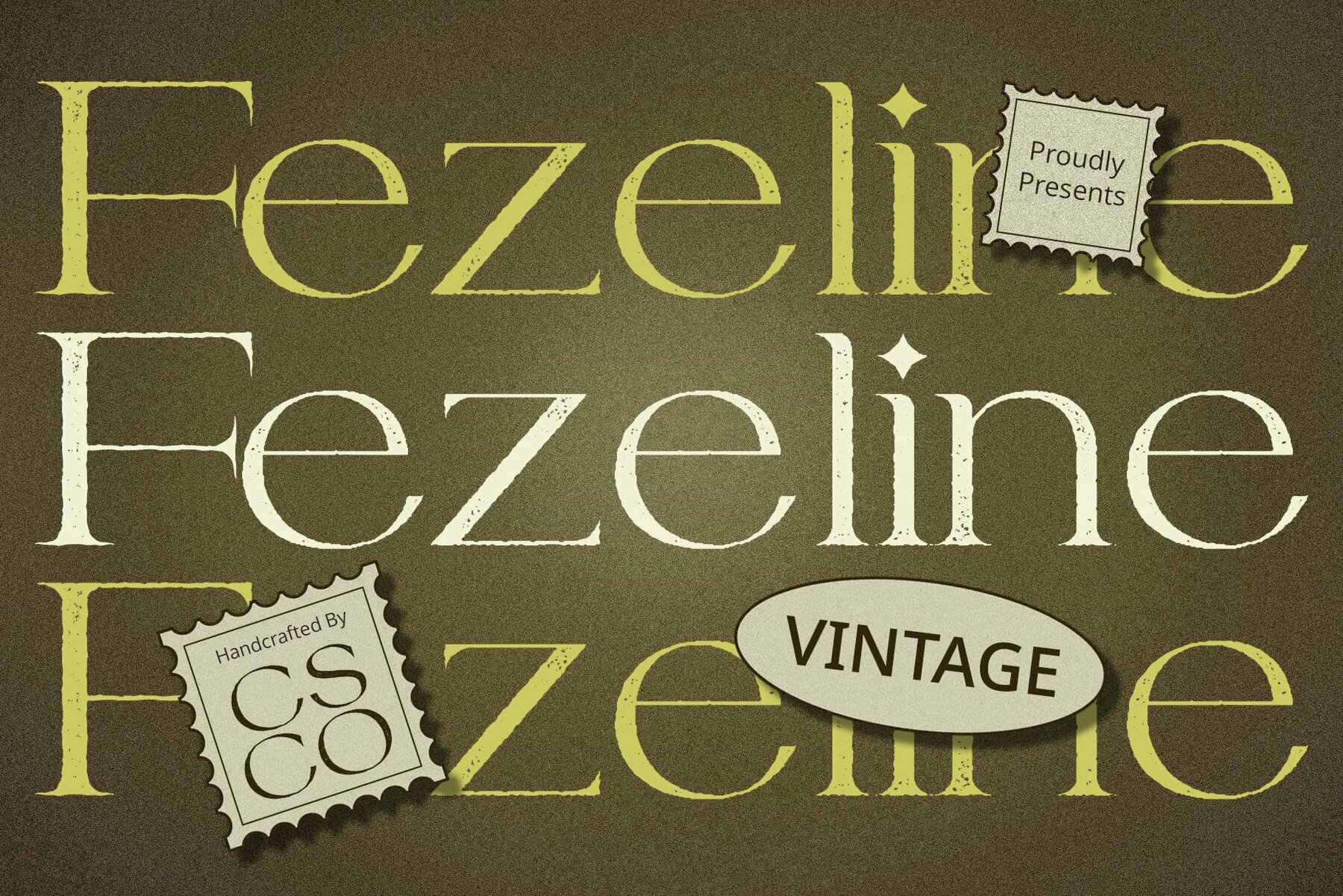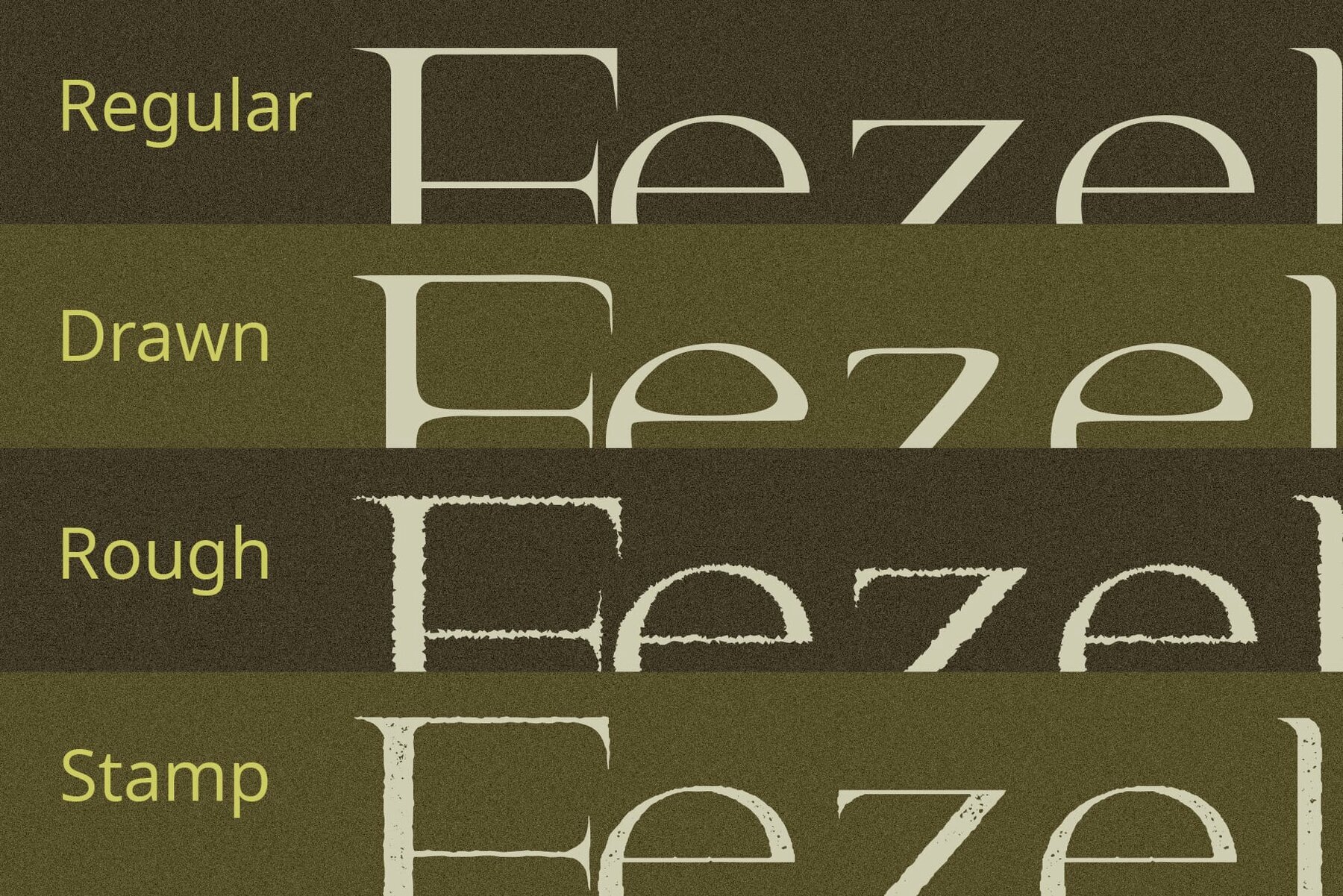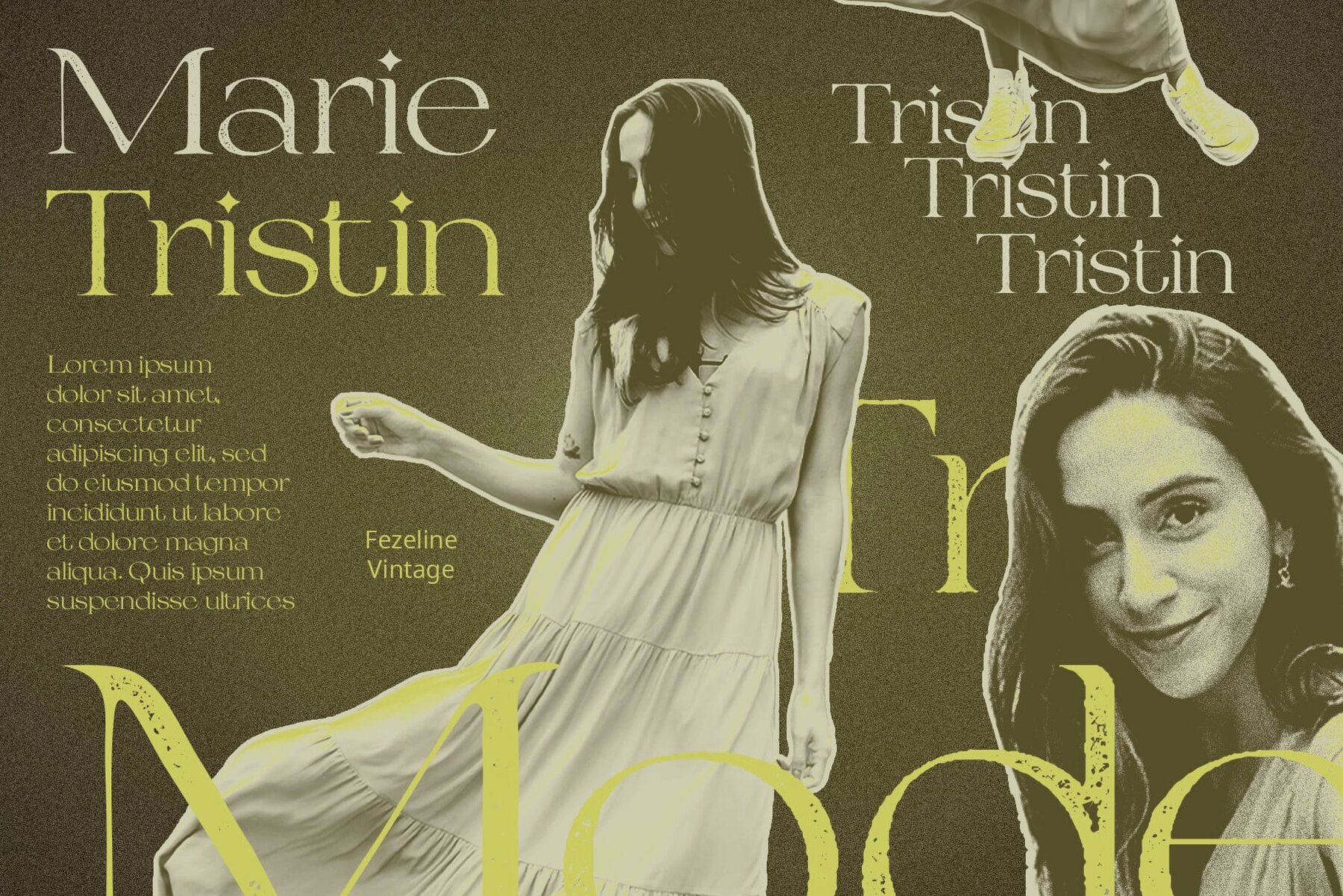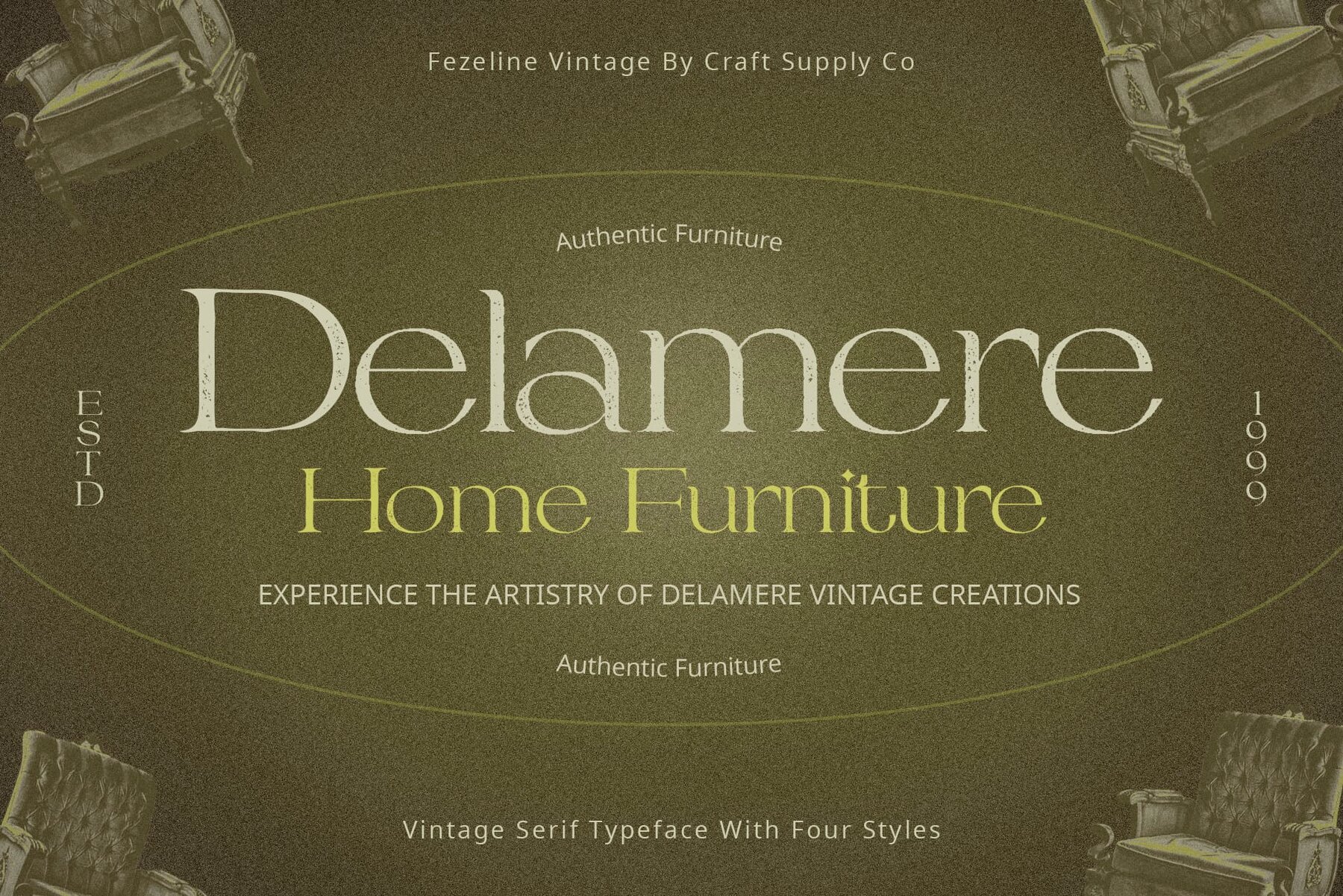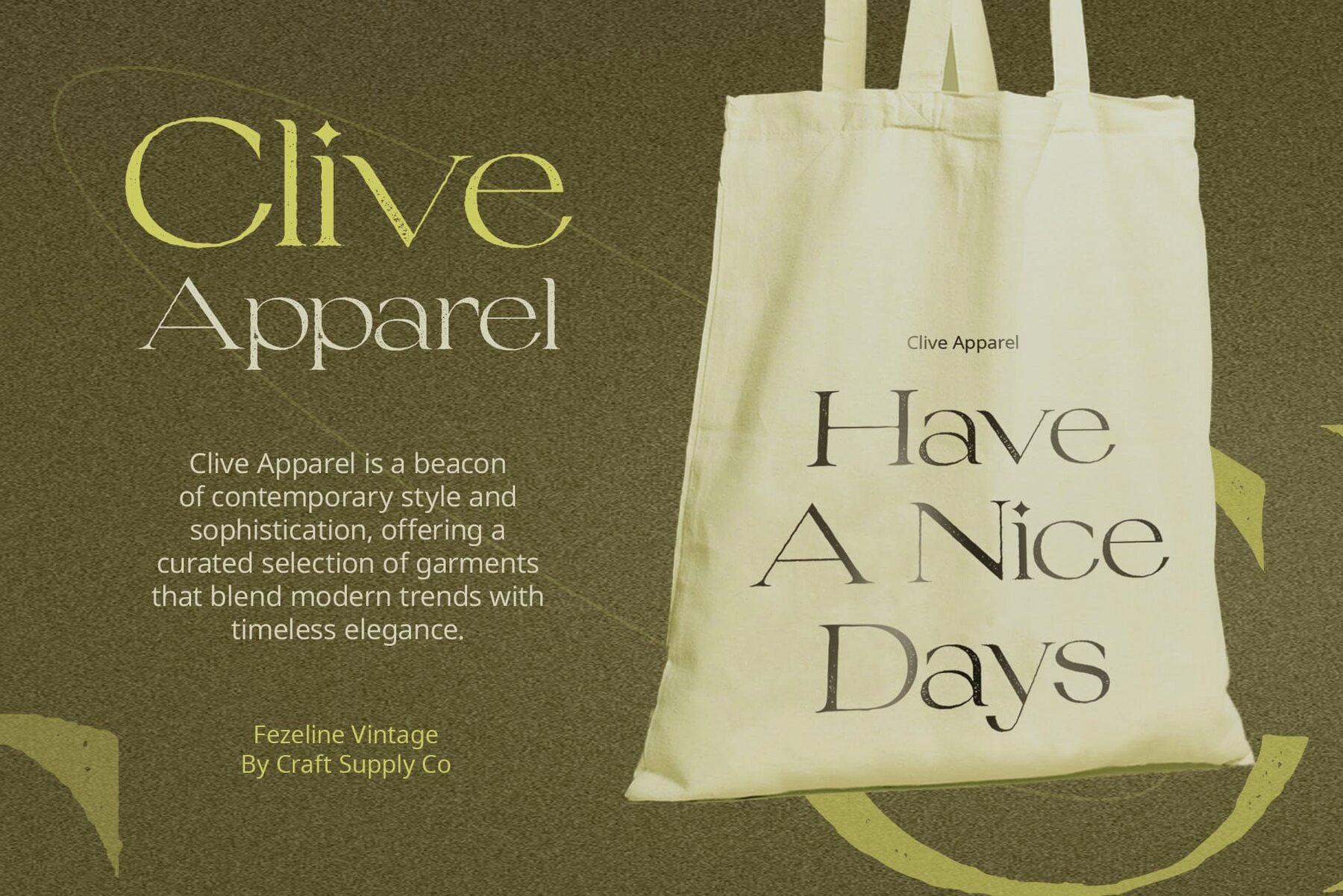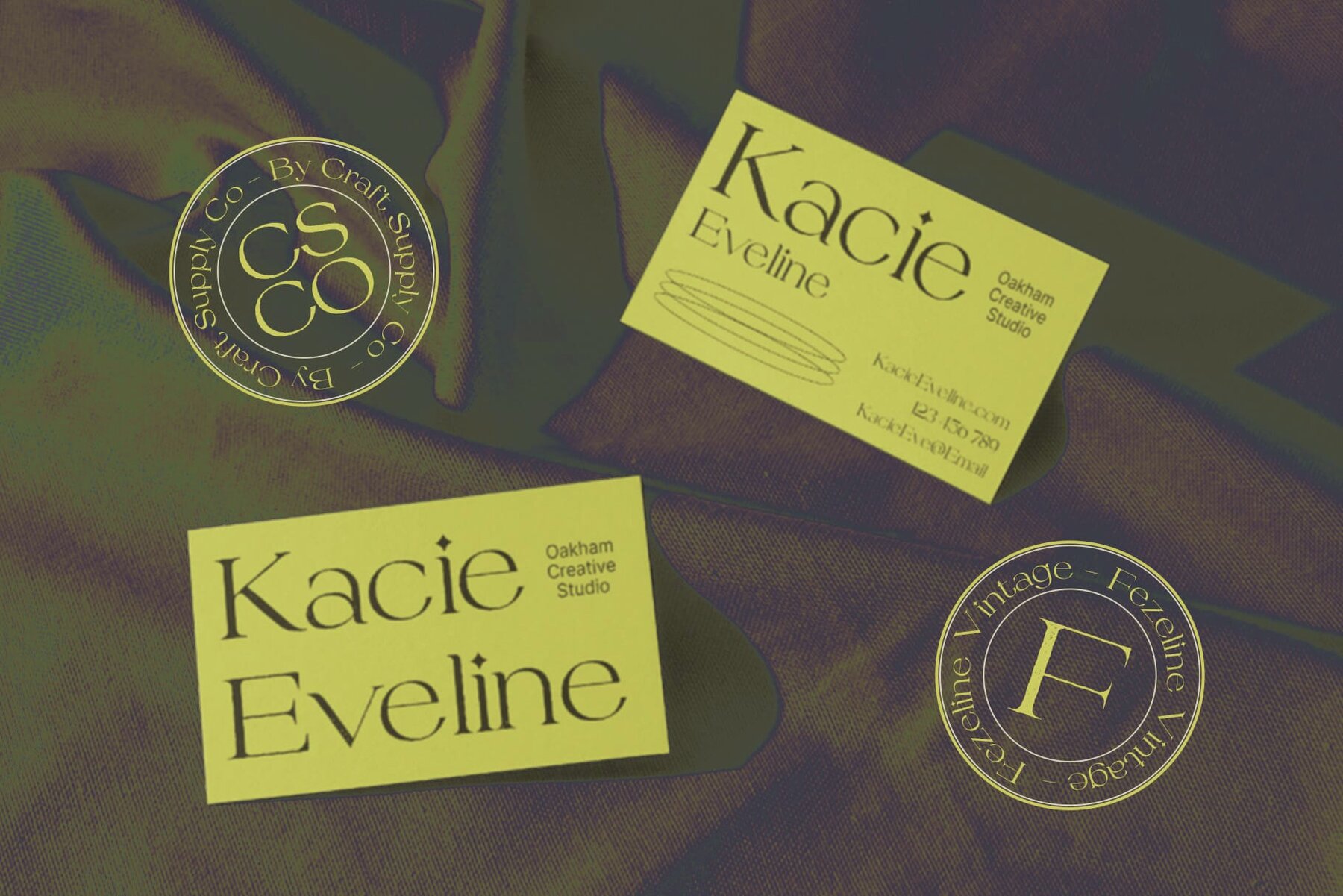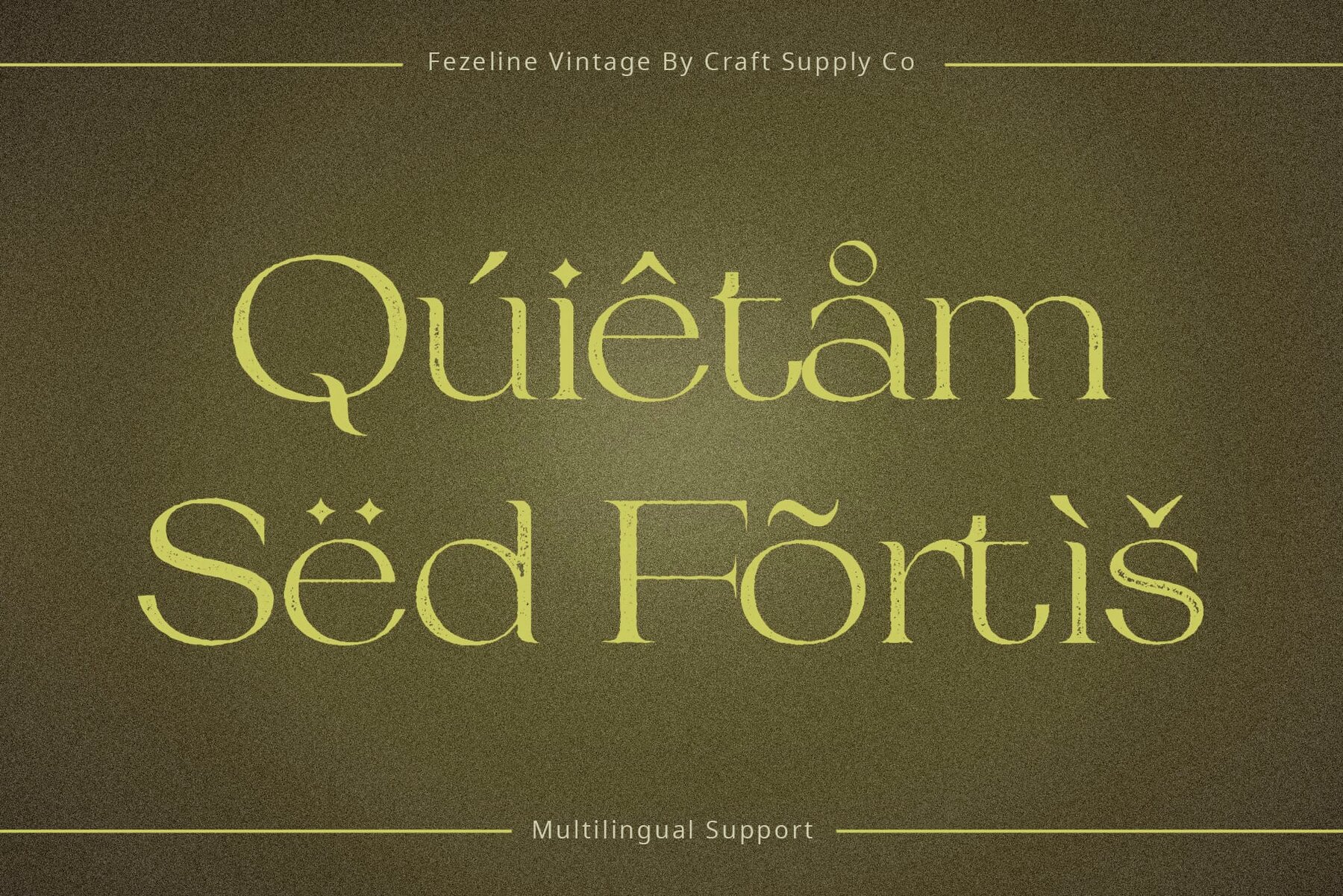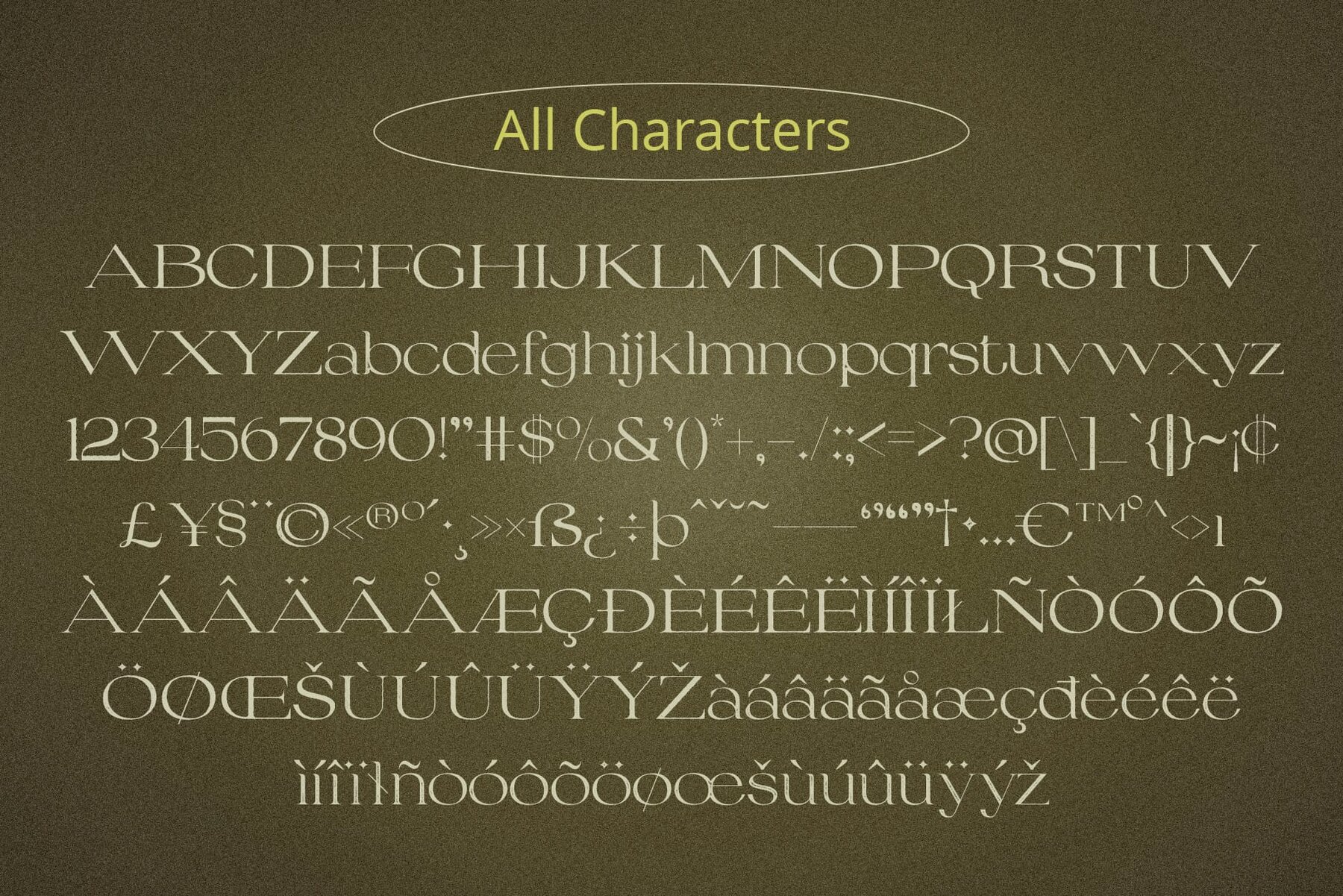
Fezeline Vintage Font
Fezeline Vintage by Craft Supply Co. is a sophisticated serif font that uniquely combines classical elements with a contemporary twist. No specialized software is needed to utilize this typeface.Fezeline Vintage: Exuding Vintage Elegance